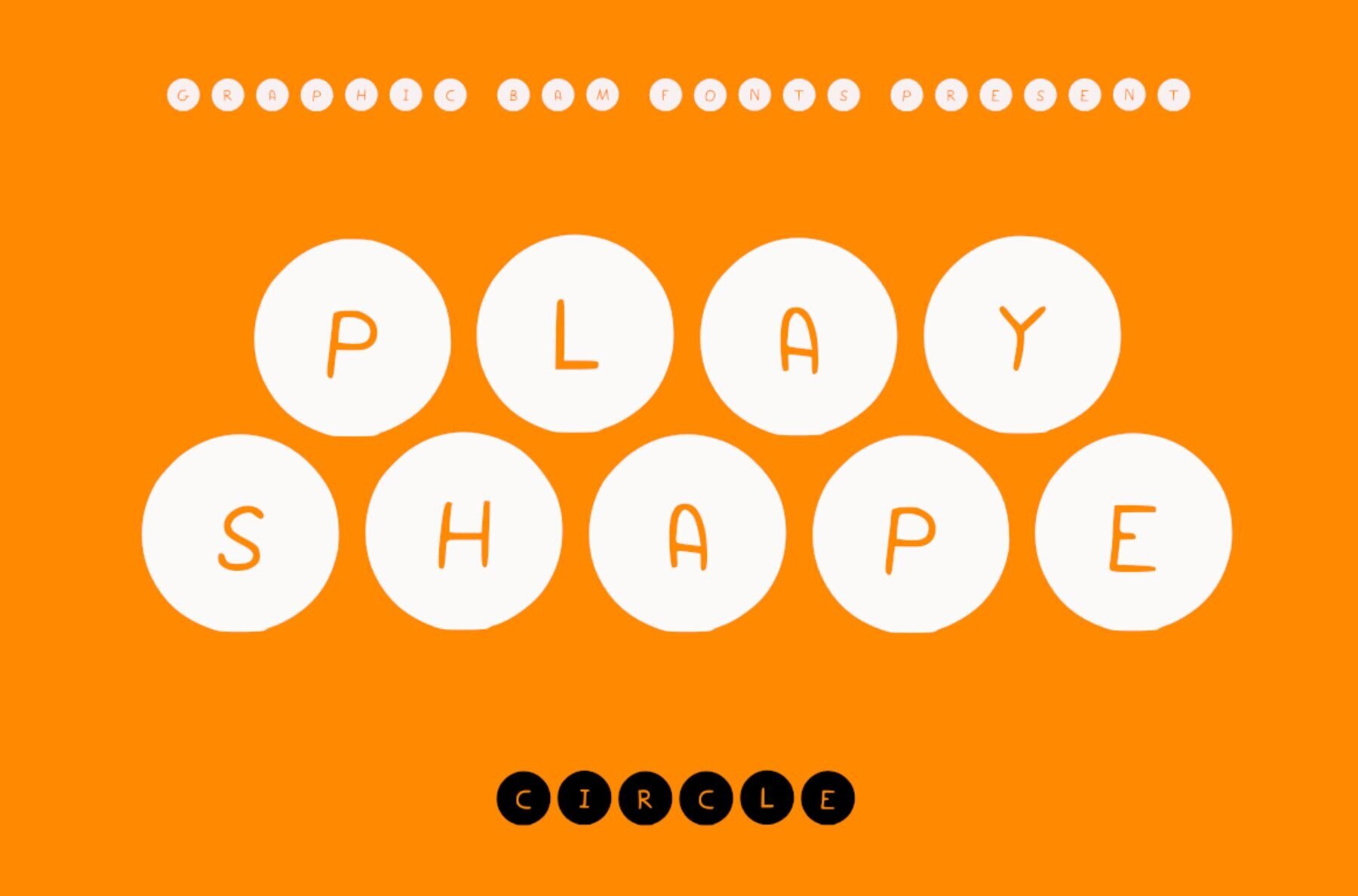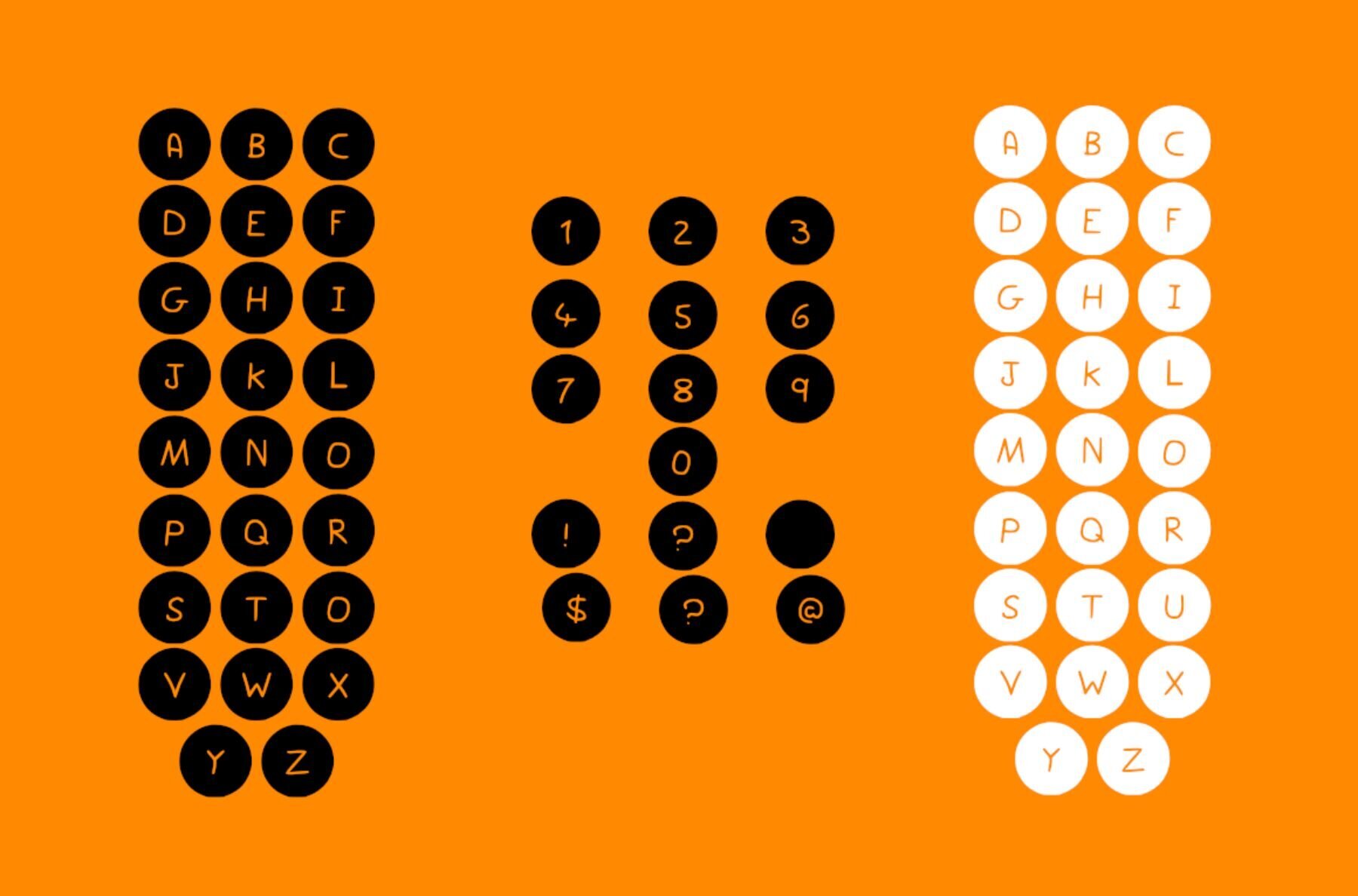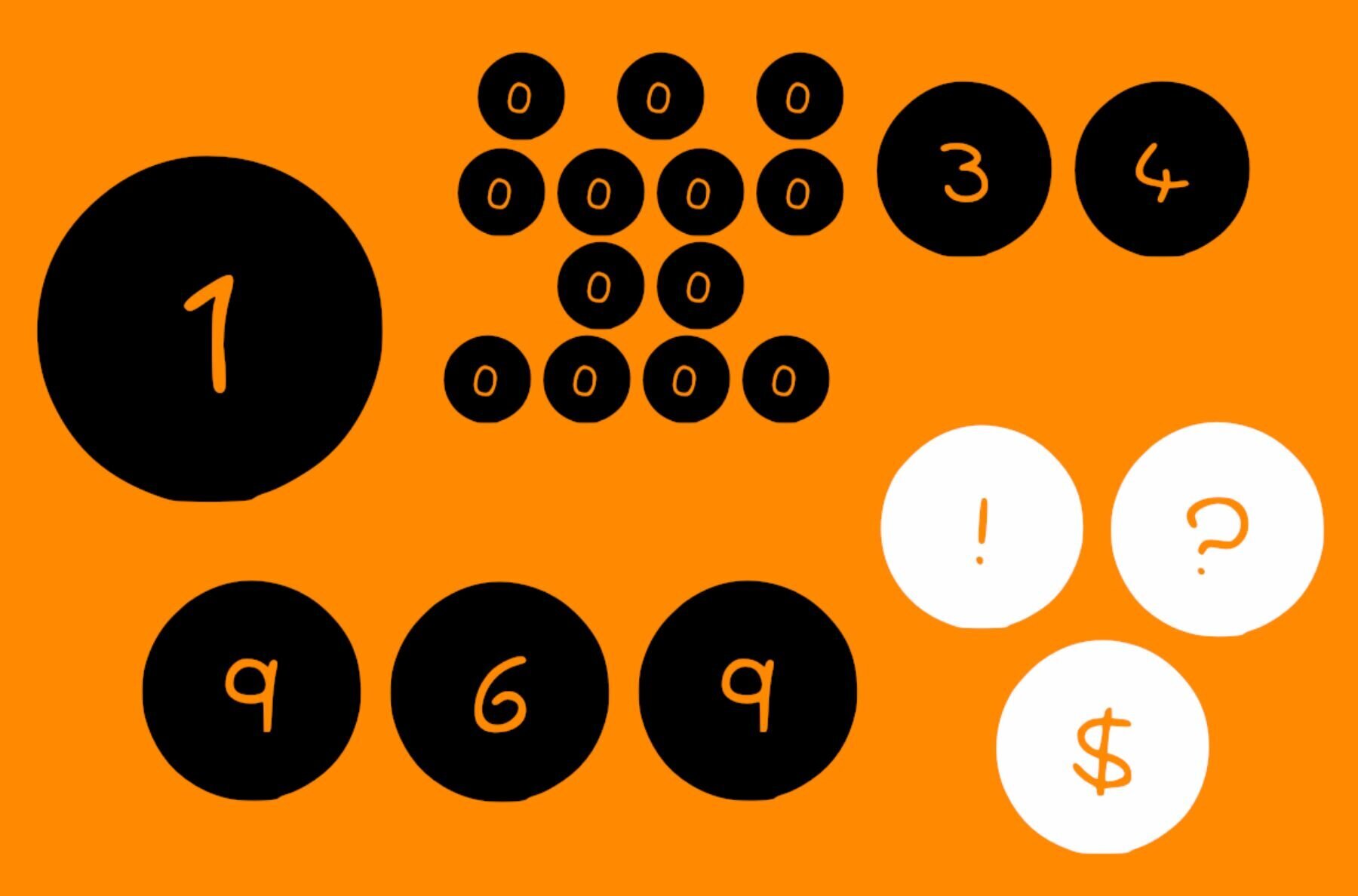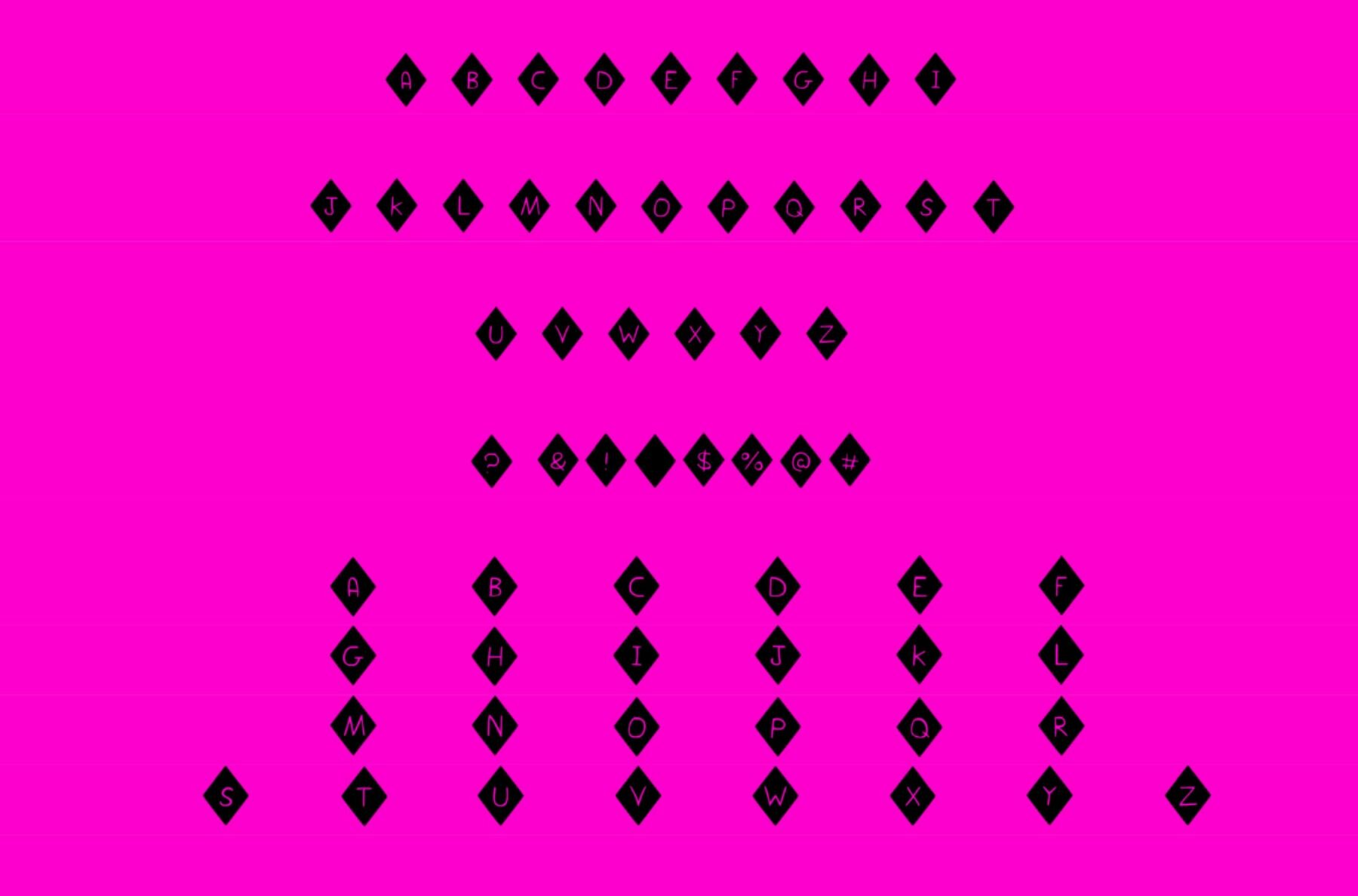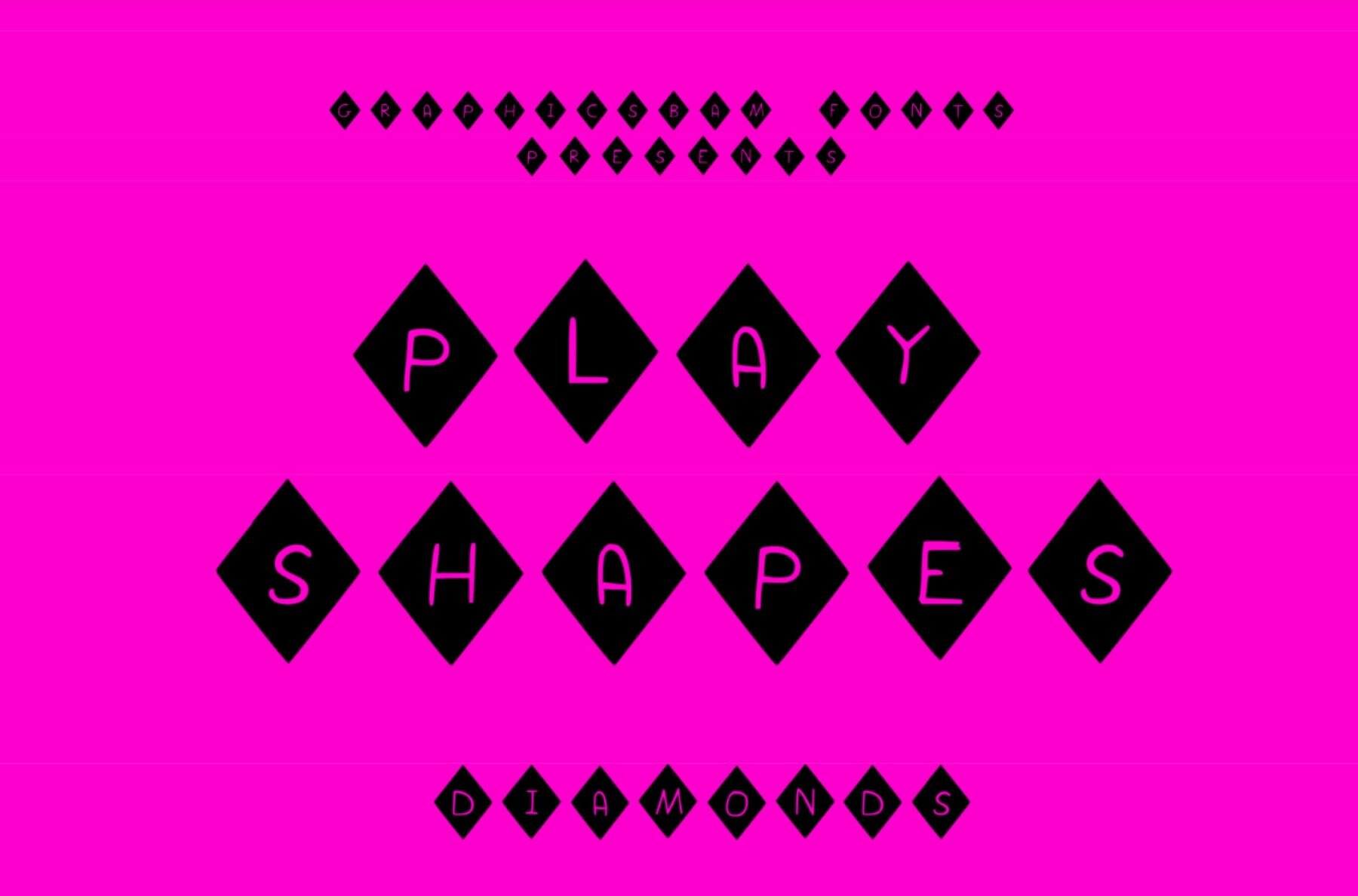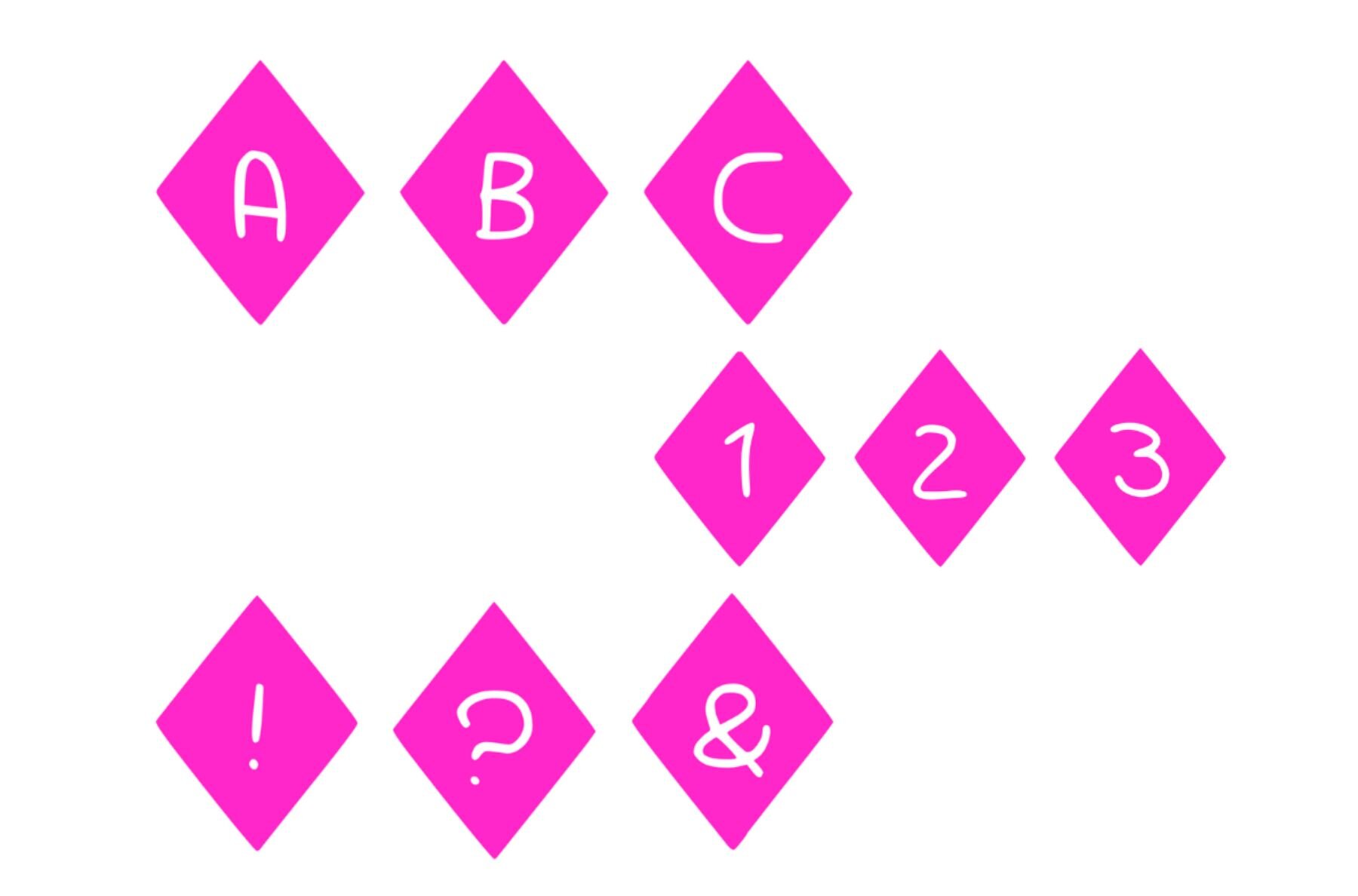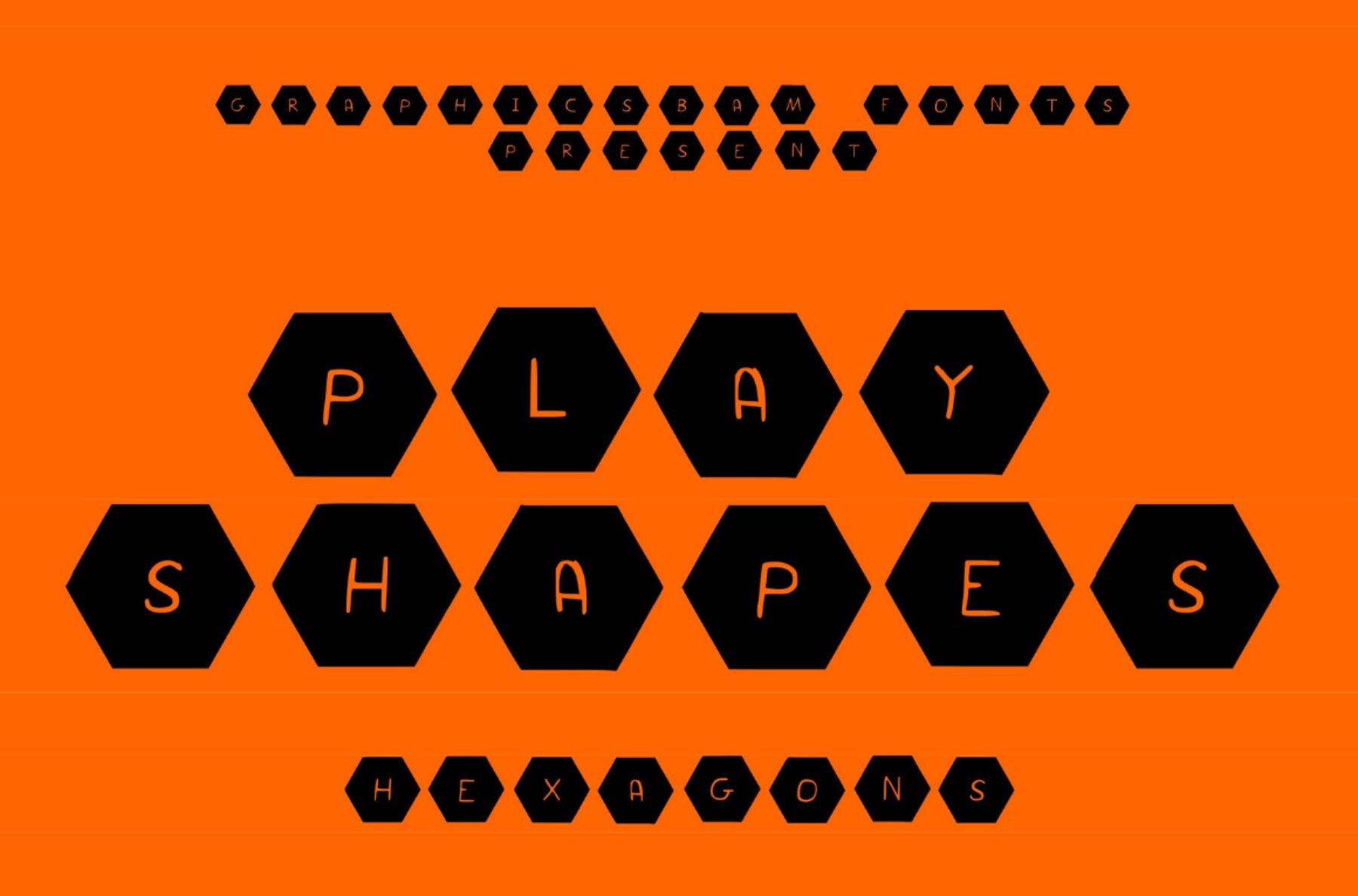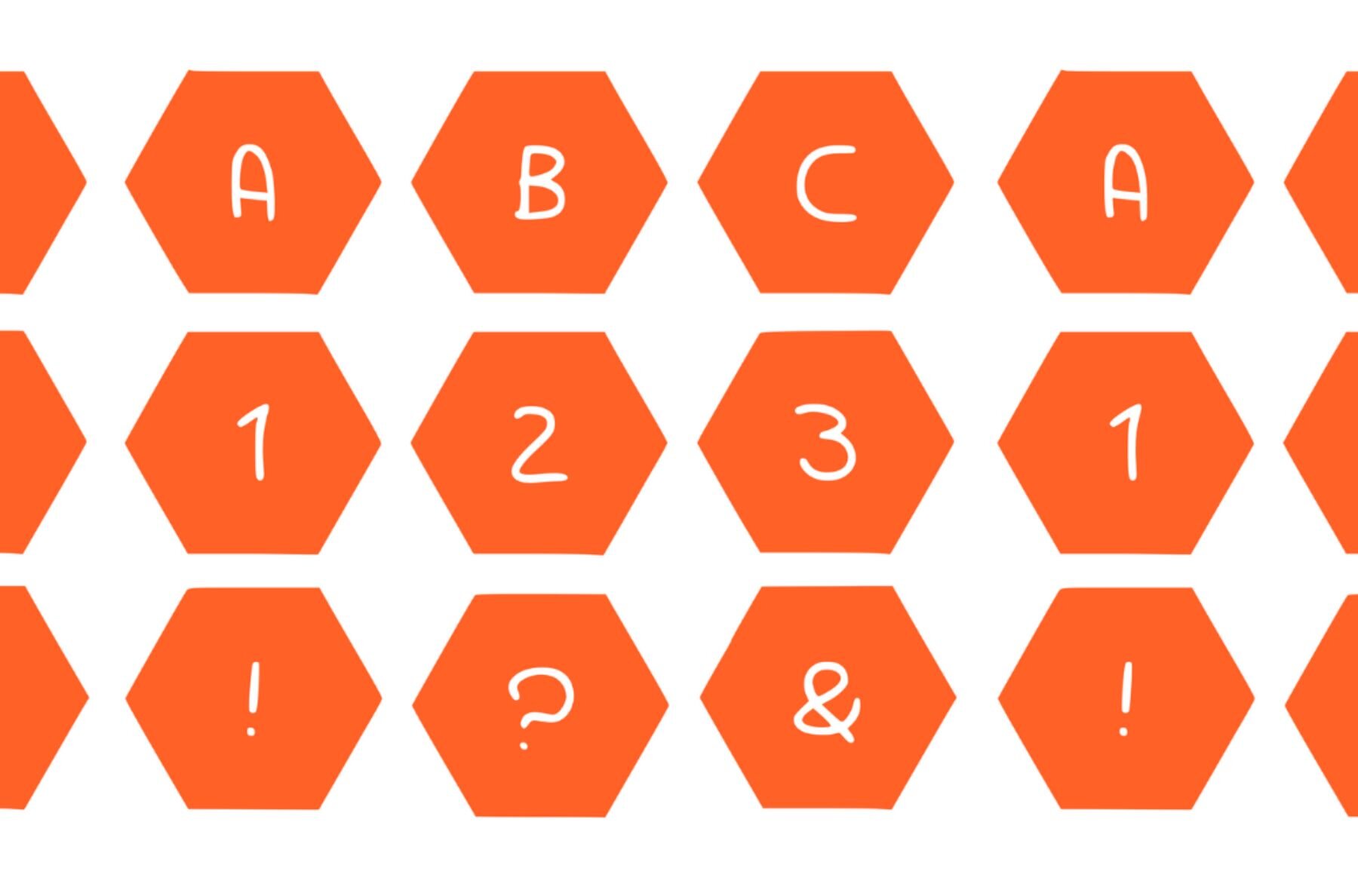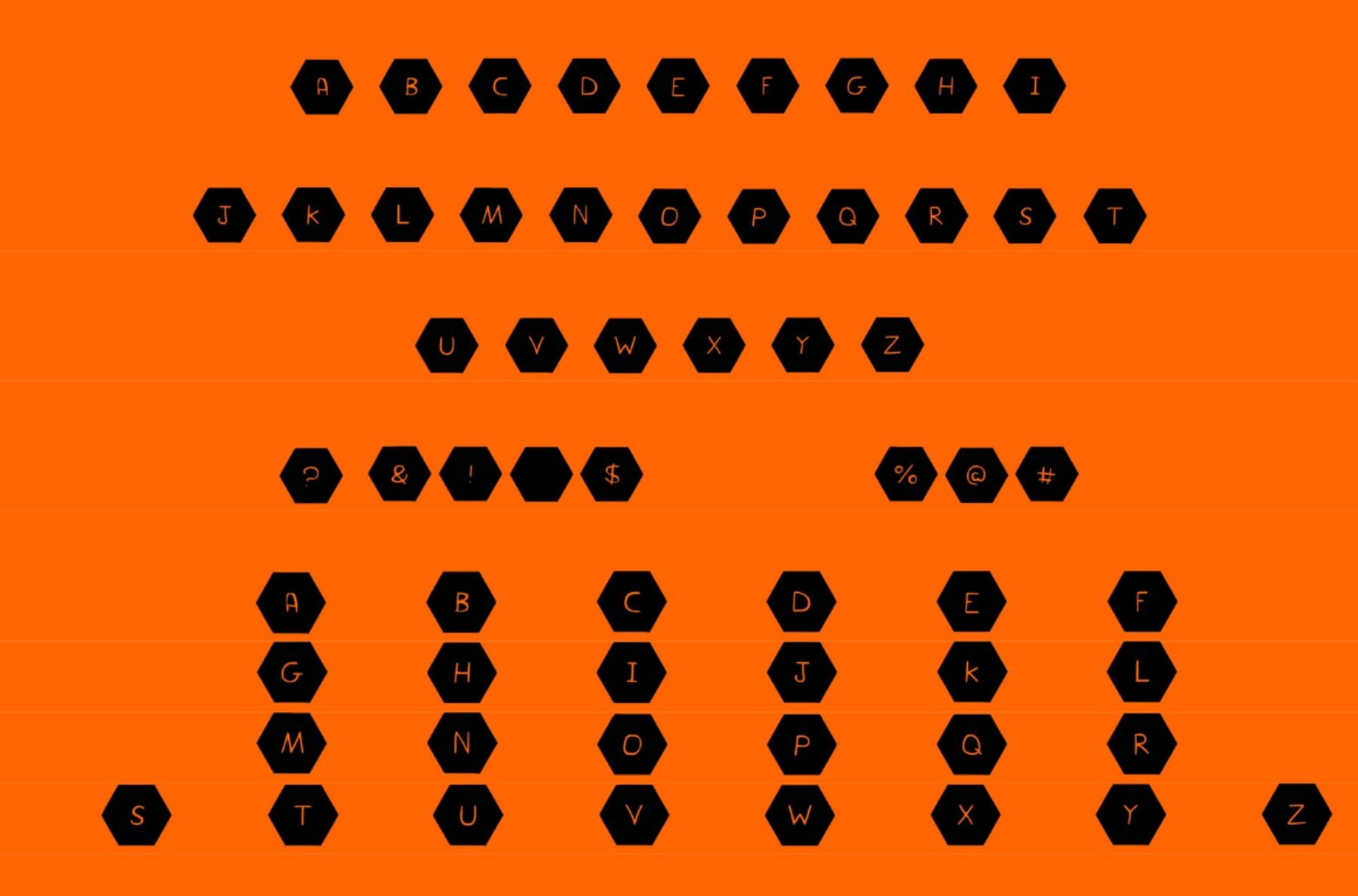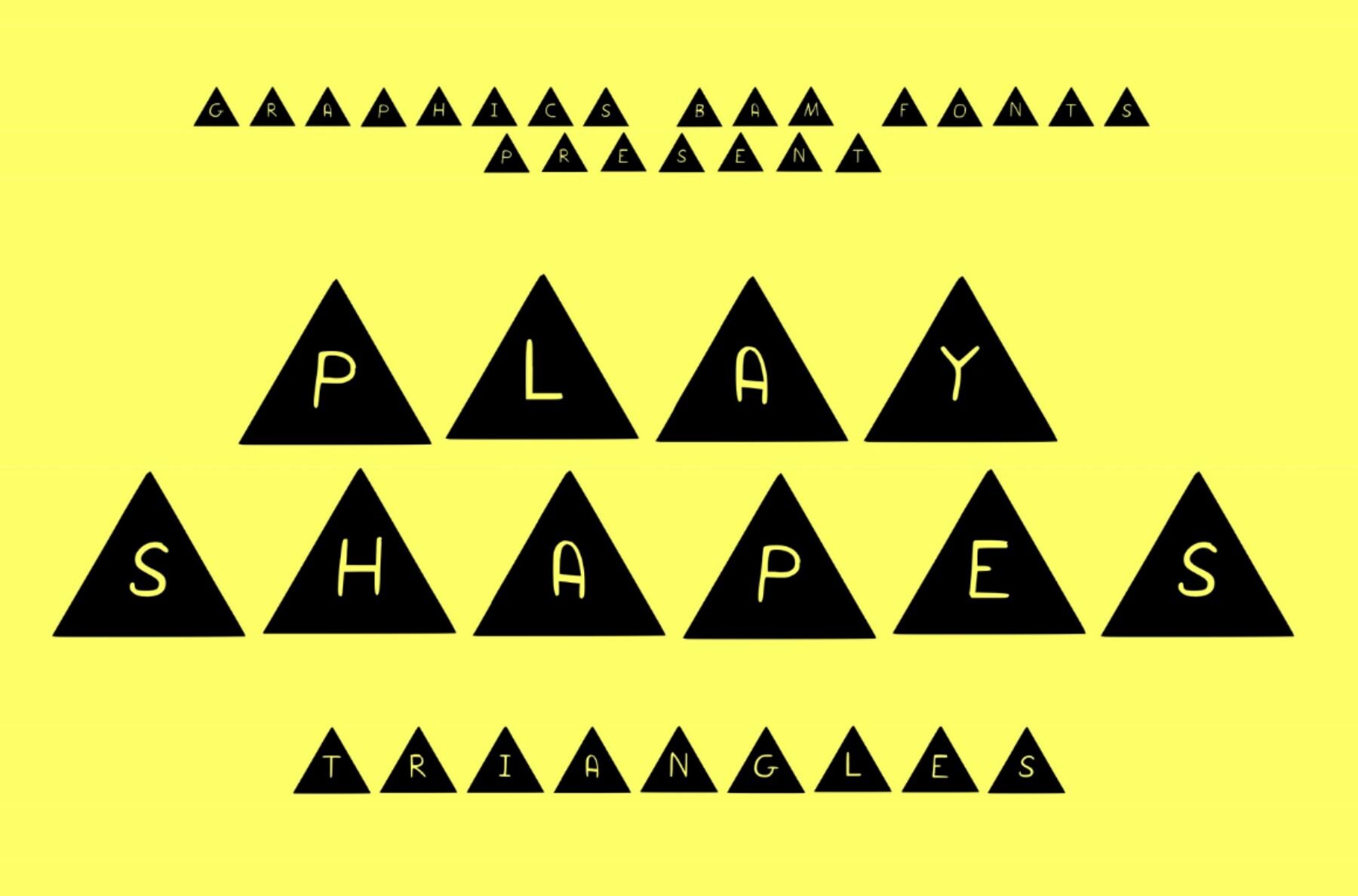
Play Shape Pack Font
Embrace the playful spirit of the Play Shape Pack, featuring five versatile shapes: circles, triangles, squares, hexagons, and diamonds. Each shape encloses a charming hand-drawn font, adding a fun and casual touch to your projects. Ideal for enhancing teaching materials, game designs, or any creation that embraces the creative use of shapes.Play Shape Pack